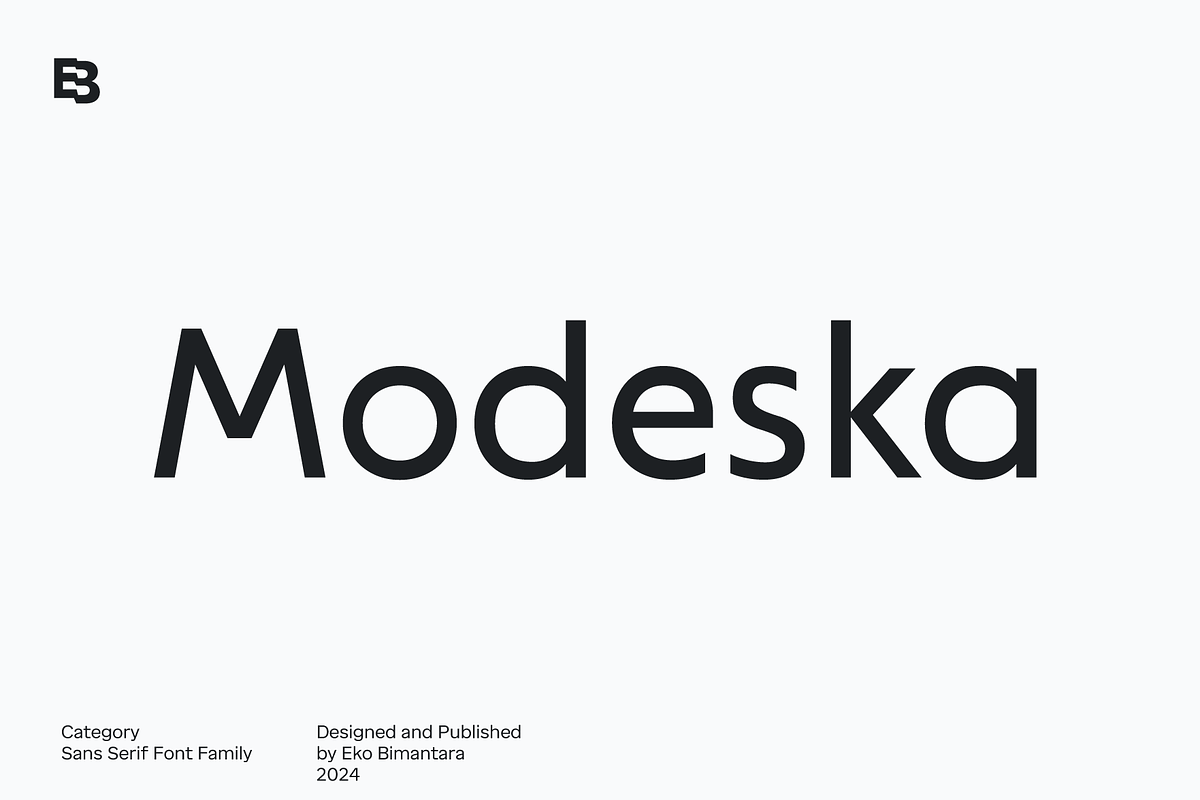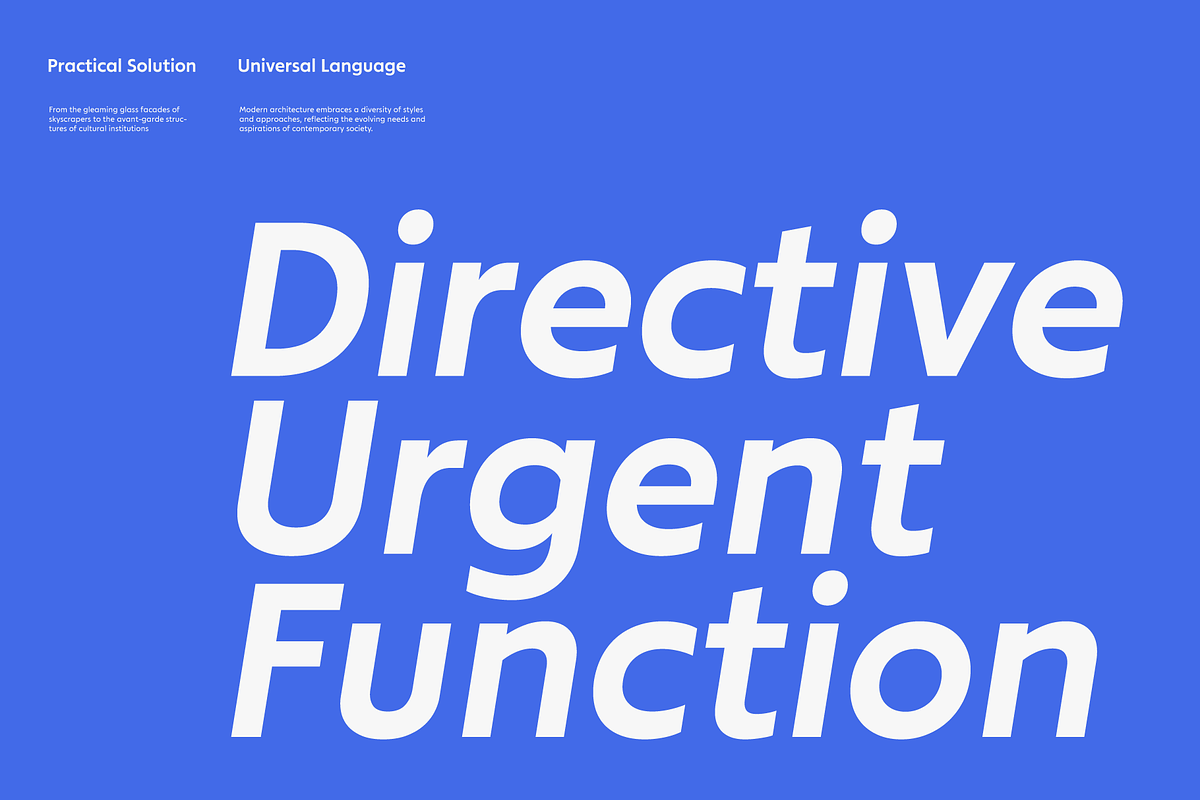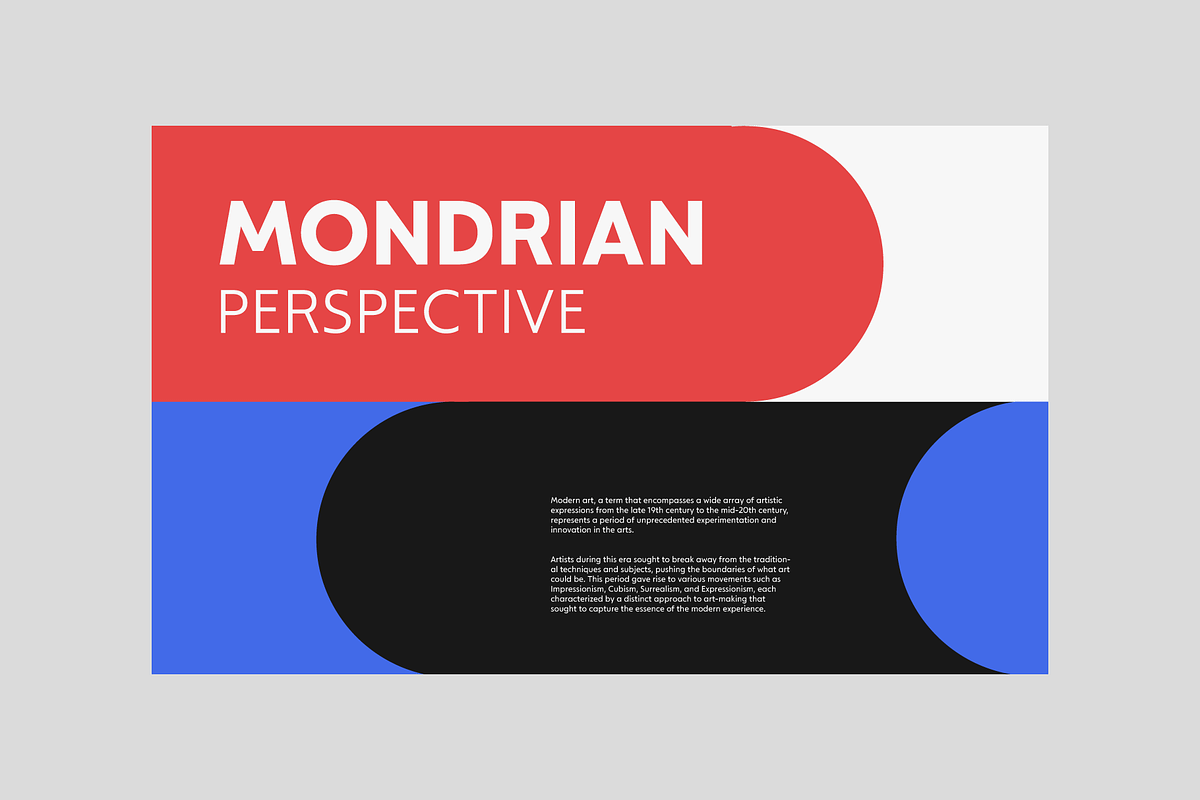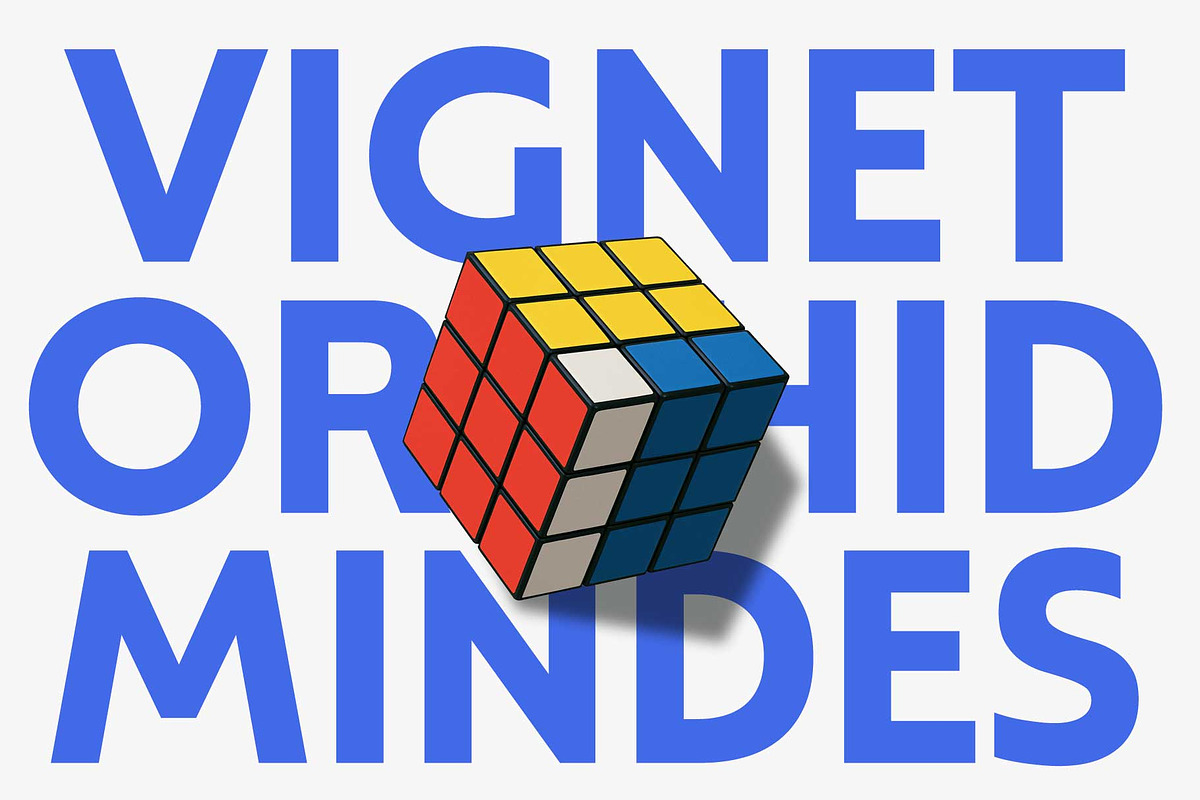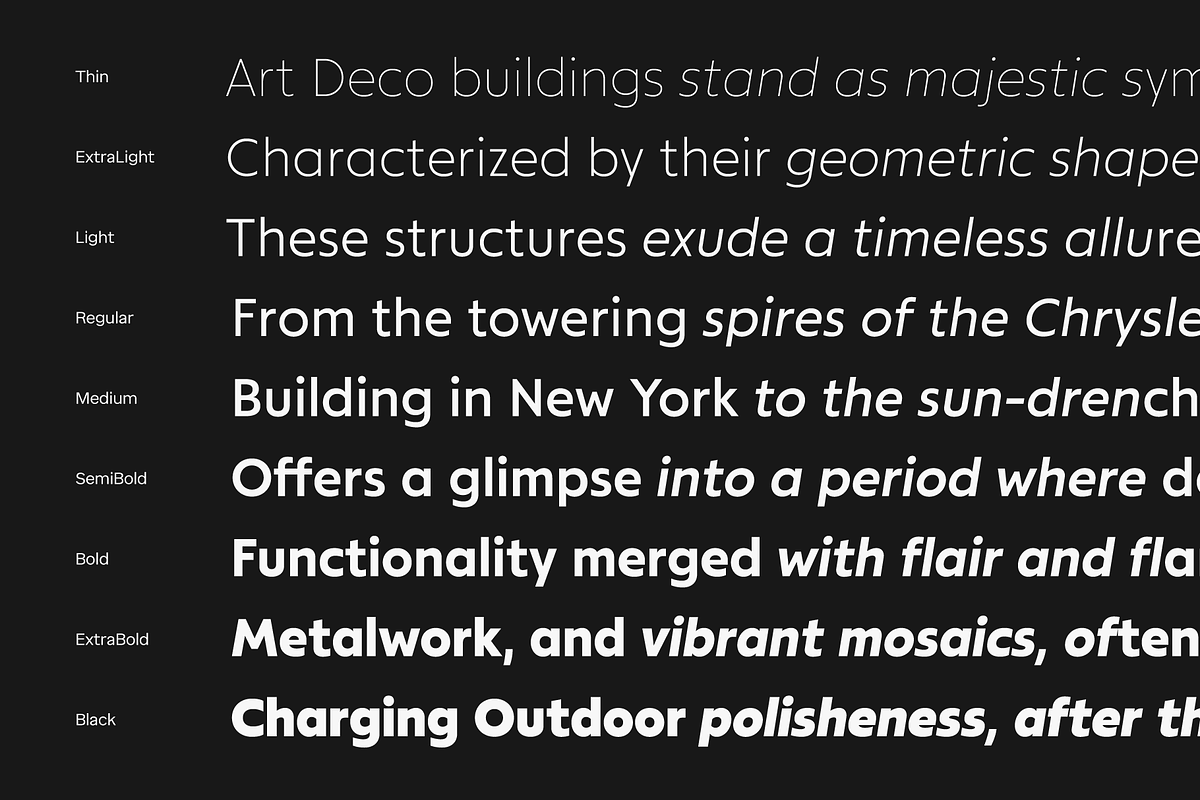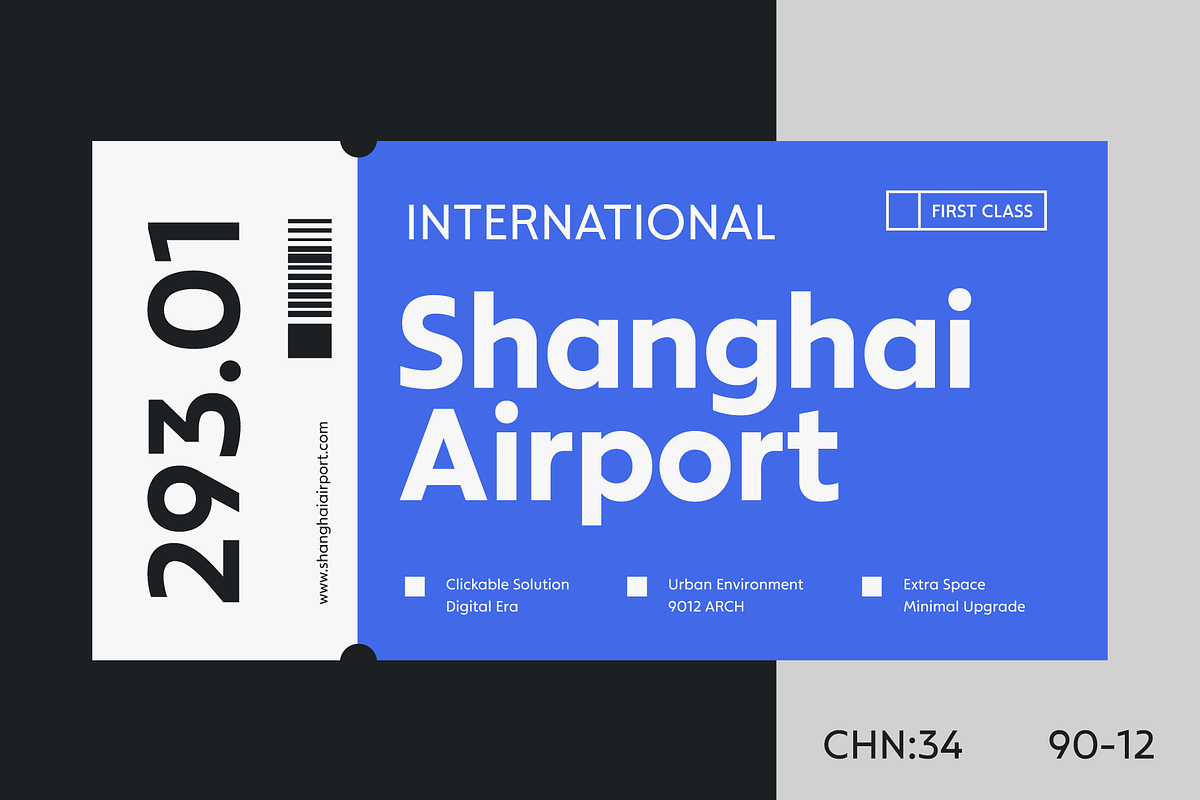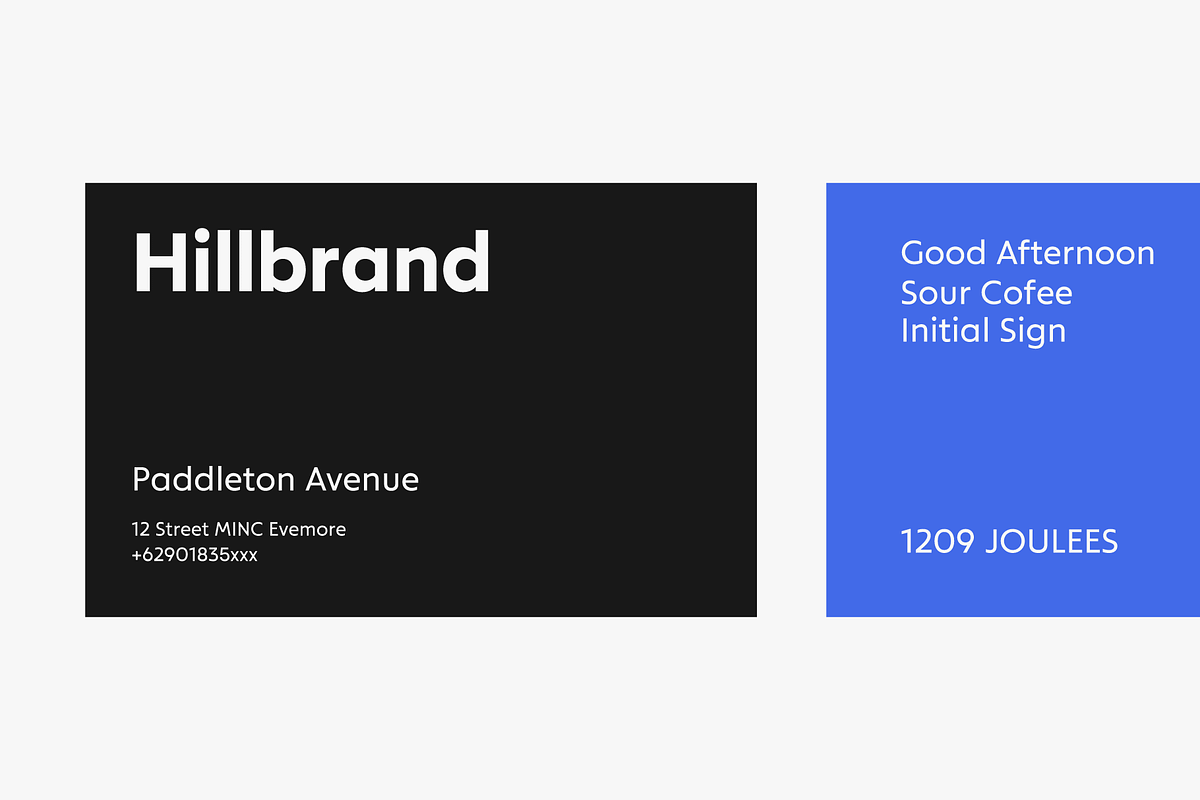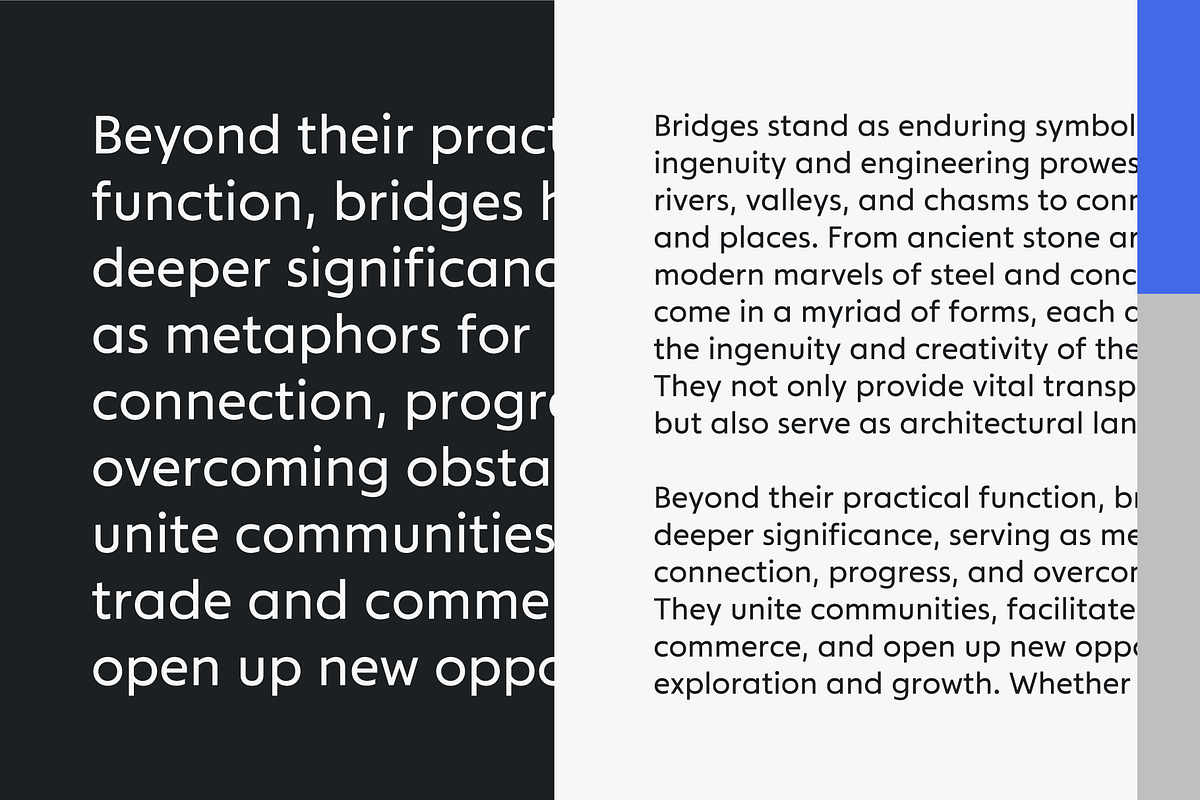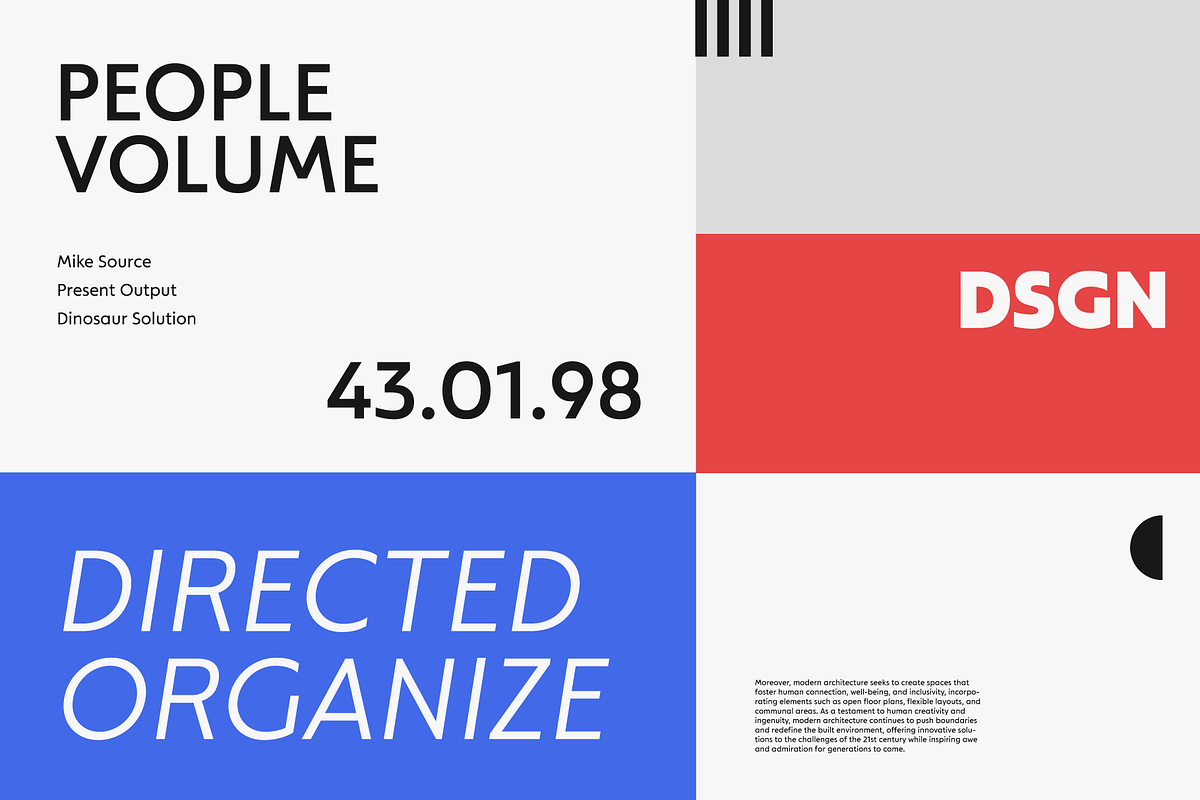
Modeska; Sans Serif Font Family
Modeska is a refined geometric sans font family, building upon the legacy of the Modeco font family with a fresh retouch. Infusing elements of both classic and humanistic styles, Modeska strikes a harmonious balance between geometric precision and timeless elegance. With 18 styles ranging from thin to black, each accompanied by matching obliques and comprehensive Latin character support, Modeska offers designers a versatile toolkit to bring their creative visions to life.
Suited for a wide array of design applications, Modeska excels in display, large-size settings, and headers, while also seamlessly integrating into various layout designs, logos, websites, brand identities, and product packaging. Its adaptability extends to both text and web font usage, making it an indispensable asset for broad graphic design projects and creative endeavors. With Modeska, designers can confidently explore the intersection of modernity and tradition, leveraging its geometric sophistication to convey a sense of contemporary refinement across diverse design contexts.